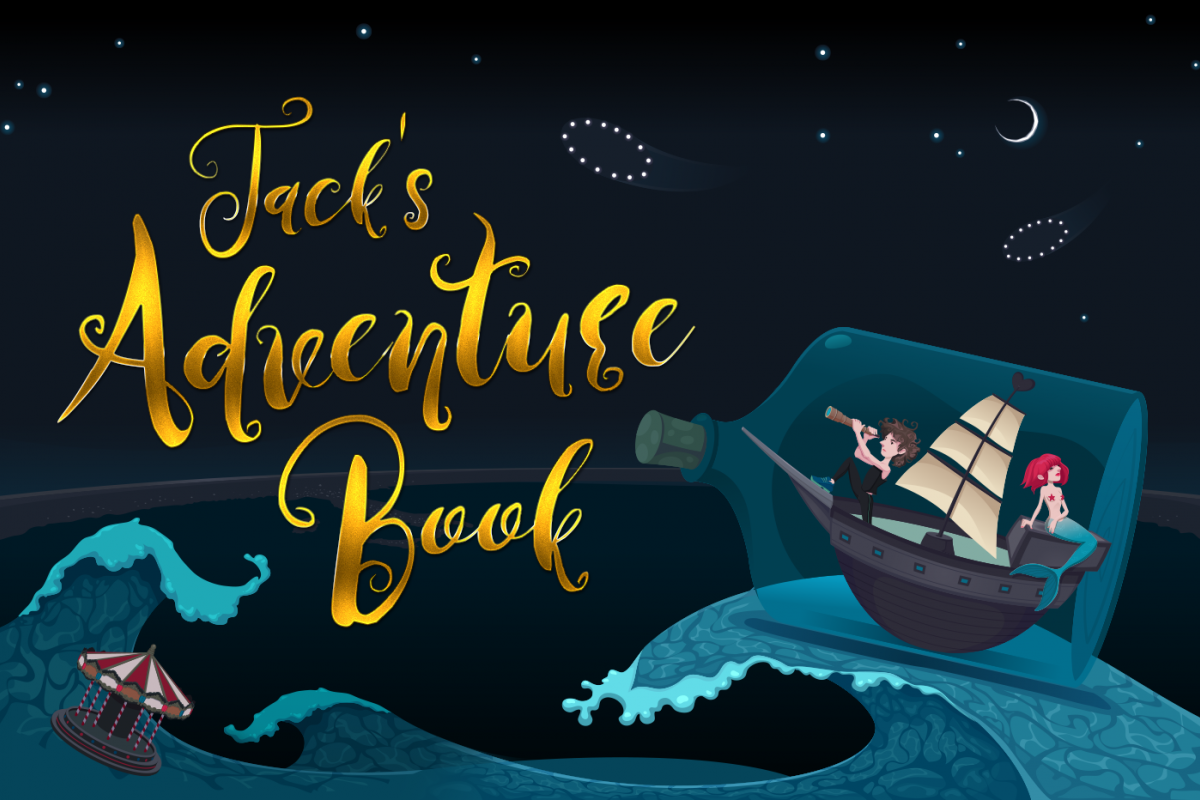
Jack's adventure book
The font for fantastic stories.The Script is a hand-made font created by using thick brush. GREAT FOR;
• Store
• Book
• Restaurants
• Menu
• Blog pages
• Web pages
• T-shirt designs and etc..